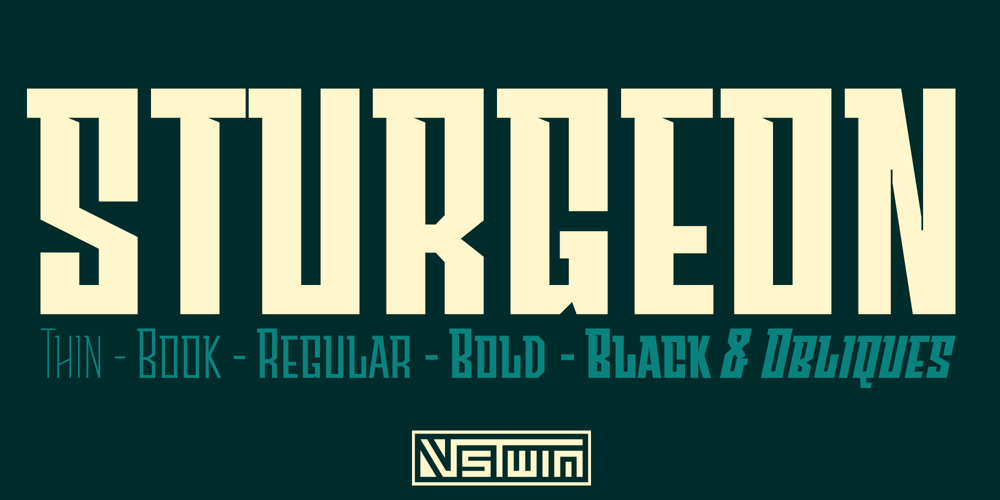
Sturgeon
Sturgeon font
Sturgeon Font Family was designed by Jim Lyles, Brian J. Bonislawsky, Brian Jaramillo and published by VersusTwin. Sturgeon contains 10 styles and family package options. Inspired by the pulse-pounding rush of adrenaline and infused with an industrial edge, the Sturgeon font family is here to make a statement. Whether you’re crafting eye-catching titles or making a statement with your brand, Sturgeon is your ultimate weapon for standing out in a sea of ordinary. From hard hitting Anime titling, Motocross Advertisements, Futuristic Space Movies, Techno Rave Flyers, or so much more, you’ve got a go to font family with Sturgeon.